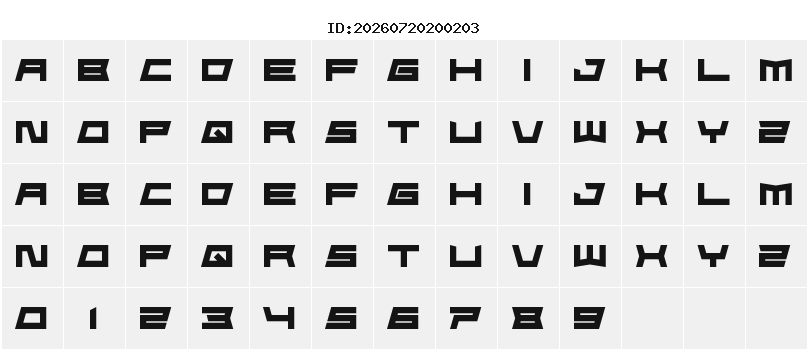
• Font Name: FoughtKnight Die
• Full Font Name: FoughtKnight Die
• Version: Version 1.00 April 16, 2014, initial release
About FoughtKnight Die.otf
FoughtKnight Die.otf is a modern, elegant sans-serif font designed for ultimate readability and visual harmony. Perfect for branding, headlines, web design, and print materials.